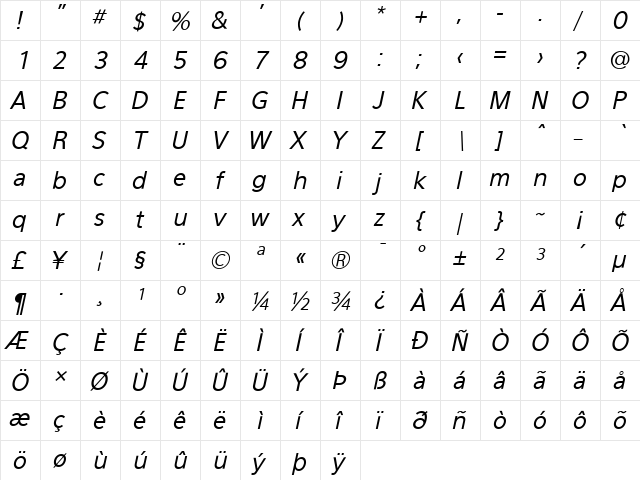
Eau Sans Book Lining Oblique
| Style | Sans Book Lining Oblique |
| Foundry | YOFonts |
| Designer | Yamaoka Yasuhiro |
Design Context for Eau Typeface
Eau is a composed and adaptable typeface that performs quietly and consistently across a wide range of design contexts. The dynamic lean of this cut emphasises speed and emphasis in any layout.
Pro Tip: Try Eau for annotation and caption copy alongside an upright companion — the contrast in angle creates a dynamic but ordered typographic system.